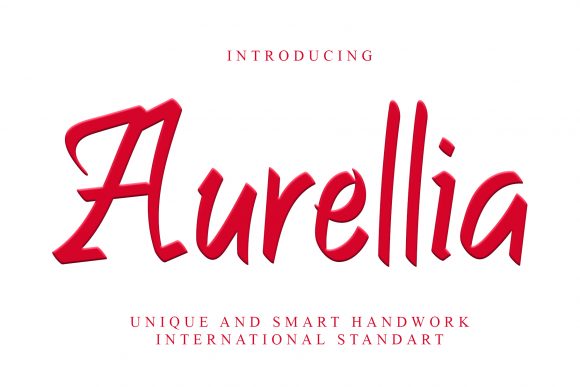
The Elegance of Aurellia Font: A Designer’s Delight
I’ll never forget the time I was working on a luxury branding project for a high-end jewelry client. I had spent hours perfecting the logo design, but something was missing. The font I had chosen just wasn’t elevating the brand to the level of sophistication I knew it deserved. That’s when I stumbled upon Aurellia Font, a smooth and elegant display font that completely transformed the project. In this article, I’ll share my experience with Aurellia, its features, and how to make the most of it in your designs.
An Honest Review of Aurellia Font
- ✨ Elegant and sophisticated design that’s perfect for luxury brands
- ✅ Smooth and clean lines that work well for both digital and print projects
- 💫 Highly versatile, suitable for a wide range of creative applications
- 🎨 Beautifully crafted to add a touch of elegance to any design
While Aurellia Font is an excellent choice for many projects, there are a few things to keep in mind:
- ⚠️ May not be the best fit for very casual or playful designs, as it leans more towards elegance and sophistication
- 🤔 Some users may find the font a bit too slender for certain applications, such as body text
- Experiment with OpenType features, such as ligatures and stylistic alternates, to add more flair to your text
The Story Behind Aurellia Font
Aurellia Font was designed with the goal of creating a smooth and elegant display font that would elevate luxury brands. The designer, inspired by classic typography and modern aesthetics, crafted Aurellia to be both refined and sophisticated. With its clean lines and beautiful details, Aurellia Font has become a popular choice among designers and brands looking to add a touch of elegance to their projects.
Q: What type of projects is Aurellia Font best suited for?
A: Aurellia Font is ideal for luxury brands, high-end publications, and any project that requires a touch of elegance and sophistication.
Q: Does Aurellia Font support OpenType features?
A: Yes, Aurellia Font supports OpenType features, including ligatures, stylistic alternates, and more.